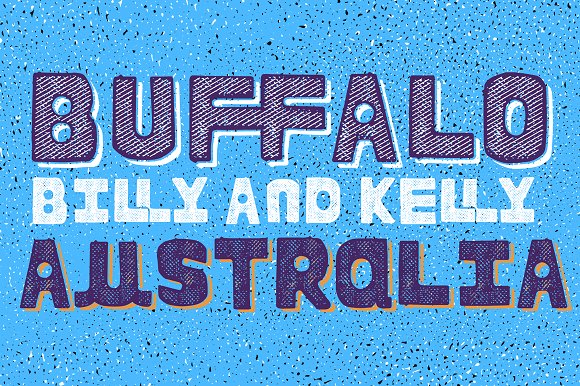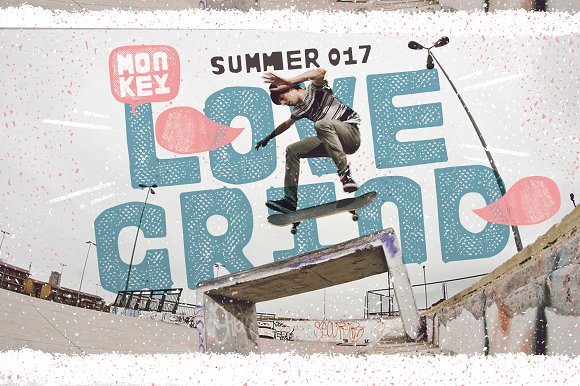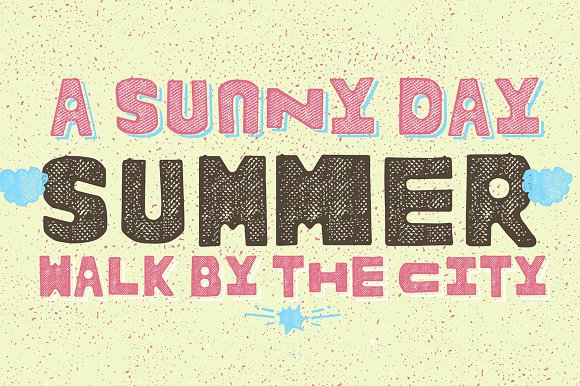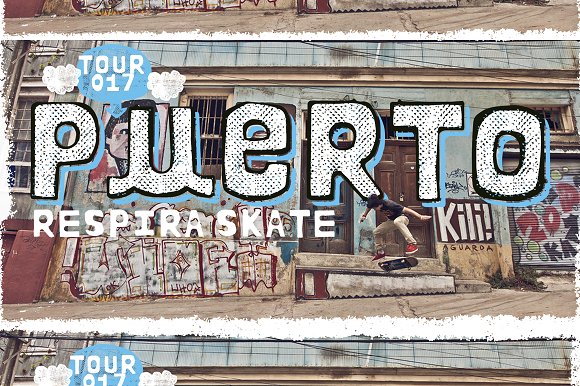
The Perfect Font to Make Your Designs Shine
Have you ever stared at a blank canvas, itching to create something truly unique? The spark of creativity is a magical thing, and it’s exactly what drives designers to push the boundaries of their craft. For those moments when you need to add a dash of whimsy to your work, look no further than the perfect font: Bowl Font.
Bowl Font is a playful display font designed to help your designs stand out from the crowd. With its distinctive curves and rounded edges, it’s the perfect choice for adding a touch of personality to your projects. Whether you’re working on a logo, a poster, or a social media graphic, Bowl Font is a valuable addition to any designer’s toolkit. Its versatility and charm make it a go-to choice for creatives looking to add a little extra oomph to their work.
Bowl Font Key Features
- Font Style: A unique, rounded sans-serif font with a bowl-like shape, ideal for modern and friendly designs.
- Language Support: Supports a wide range of languages, including Latin, Cyrillic, and Greek scripts, making it a great choice for multilingual projects.
- Kerning and Ligatures: Includes advanced kerning and ligature pairs for improved readability and aesthetics.
Bowl Font Review
I recently had the chance to work with the Bowl Font, and I have to say it’s a unique and interesting choice for typography enthusiasts. Here are my thoughts on what works well and what doesn’t.
- The Bowl Font’s rounded shapes and soft edges create a friendly, approachable feel that’s perfect for branding and marketing materials.
- The font’s versatility allows it to be used in a wide range of applications, from digital displays to print materials.
- The Bowl Font’s subtle texture and imperfections add a touch of warmth and character to the design.
- The Bowl Font’s rounded shapes can sometimes make it difficult to read, especially in smaller sizes or for those with visual impairments.
- The font’s soft edges can also make it challenging to achieve crisp, clean lines in certain designs.
- The Bowl Font may not be the best choice for formal or professional applications, where a more traditional font is often preferred.
The Bowl Font is a great choice for designers looking to add a touch of personality and whimsy to their designs. While it may have some limitations, its unique charm and versatility make it a great option for creative projects. With careful consideration and planning, the Bowl Font can be a valuable addition to any design toolkit.
Bowl Font is ideal for:
- Displaying headings and titles
- Creating eye-catching graphics and social media posts
- Designing logos and branding materials
For best results, use Bowl Font in bold or italic styles to add emphasis and visual interest.